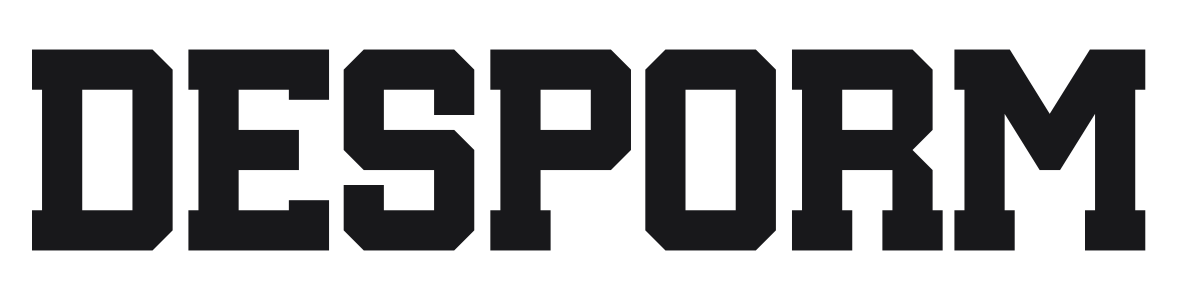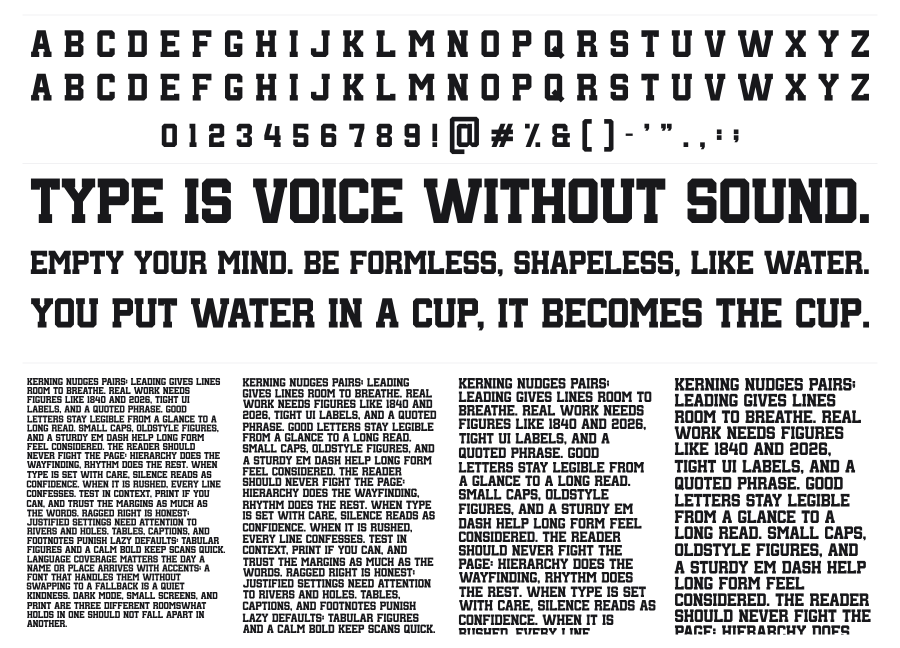
Desporm
Desporm is a heavy condensed slab-serif with a bold collegiate personality rooted in American sports typography. Flat, sturdy serifs and tight spacing give it a dense, authoritative presence that commands attention at large sizes. It suits sports branding, team identities, posters, and any project that needs raw typographic muscle.